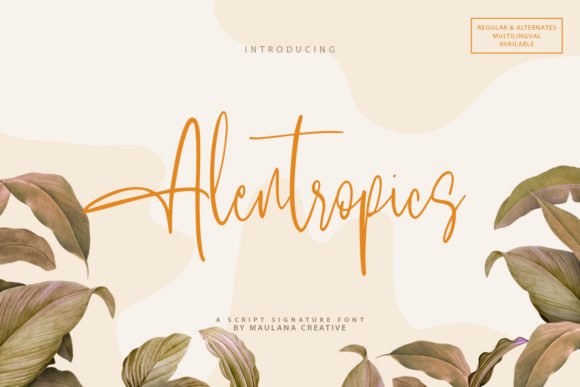
Give Your Creativity a Boost with Alentropics Font
Remember that moment when you were rummaging through your grandma’s old craft box, and you stumbled upon a beautifully handmade card from years ago? The intricate designs, the unique font, and the love that went into creating it – it’s a feeling that’s hard to replicate, but not impossible. As designers and crafters, we’re always on the lookout for ways to add that special touch to our projects, making them truly one-of-a-kind.
That’s where Alentropics Font comes in – a modern, authentic font that’s designed to give your arts & craft projects a distinct feel. Whether you’re creating a wedding invitation, a birthday card, or a DIY decor piece, Alentropics Font is the perfect addition to elevate your design. For designers, this font is a valuable asset, offering a unique touch that sets their work apart from the rest.
Alentropics Font Key Features
- Font Family: Alentropics comes in multiple font styles, including regular, bold, italic, and bold italic.
- Unique Characteristic: Alentropics features a unique blend of futuristic and organic elements, giving it a distinctive look that sets it apart from other fonts.
- Font Metrics: Alentropics is carefully crafted to ensure precise font metrics, ensuring that text remains legible and visually appealing even at small font sizes.
Alentropics Font Review
After delving into the world of Alentropics Font, I must say it’s a mixed bag. On the one hand, there are some things that truly shine ✨.
- Unique Character**: Alentropics Font boasts a unique character that sets it apart from more traditional fonts. The subtle irregularities give it an organic feel that’s hard to resist.
- Legibility**: Despite its unconventional nature, the font is surprisingly legible, making it suitable for a wide range of applications.
- Creative Potential**: The font’s eccentricities lend themselves perfectly to creative projects, from artistic typography to branding.
However, there are also some limitations to consider ⚠️.
- Difficulty in Readability**: While the font is legible, it can be challenging to read in smaller sizes or when paired with complex text.
- Limited Versatility**: Alentropics Font may not be the best choice for more formal or traditional projects, as its unconventional nature can come across as too playful.
Overall, I’d say Alentropics Font is a solid choice for designers looking to add a touch of whimsy to their work. While it may not be suitable for every project, its unique character and creative potential make it a valuable addition to any designer’s toolkit.
Getting the Most Out of Alentropics Font
For optimal results, use Alentropics font in combination with a bold or italic font to create visual interest.
Use Alentropics font in headings and subheadings to create a clear hierarchy of information.
Alentropics font is ideal for creative and artistic projects, such as:
1. Graphic design
2. Branding and logo design
3.